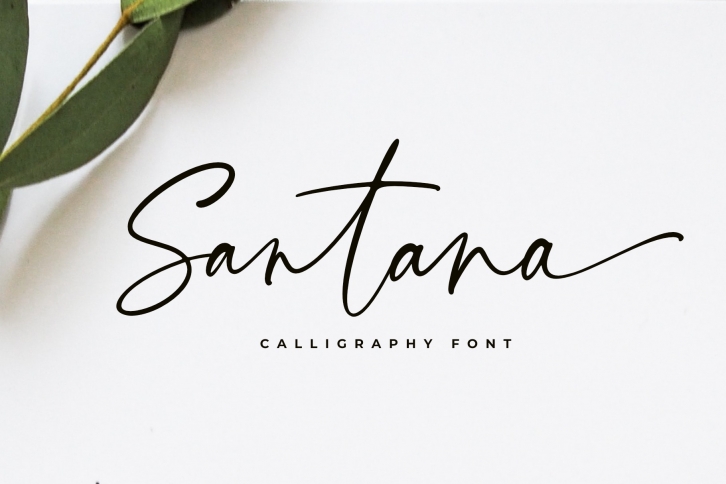
Santana Calligraphy Font Download
Santana Calligraphy is a beautiful font that was designed by Pen Culture. It's a great choice for designers and creatives who need such a font. It was released on March 16, 2020 and the file size is 9.53 MB. Santana Calligraphy may give a more youthful, expressive and casual look to your project. It is a very beautiful, refined, elegant, and high-quality font.